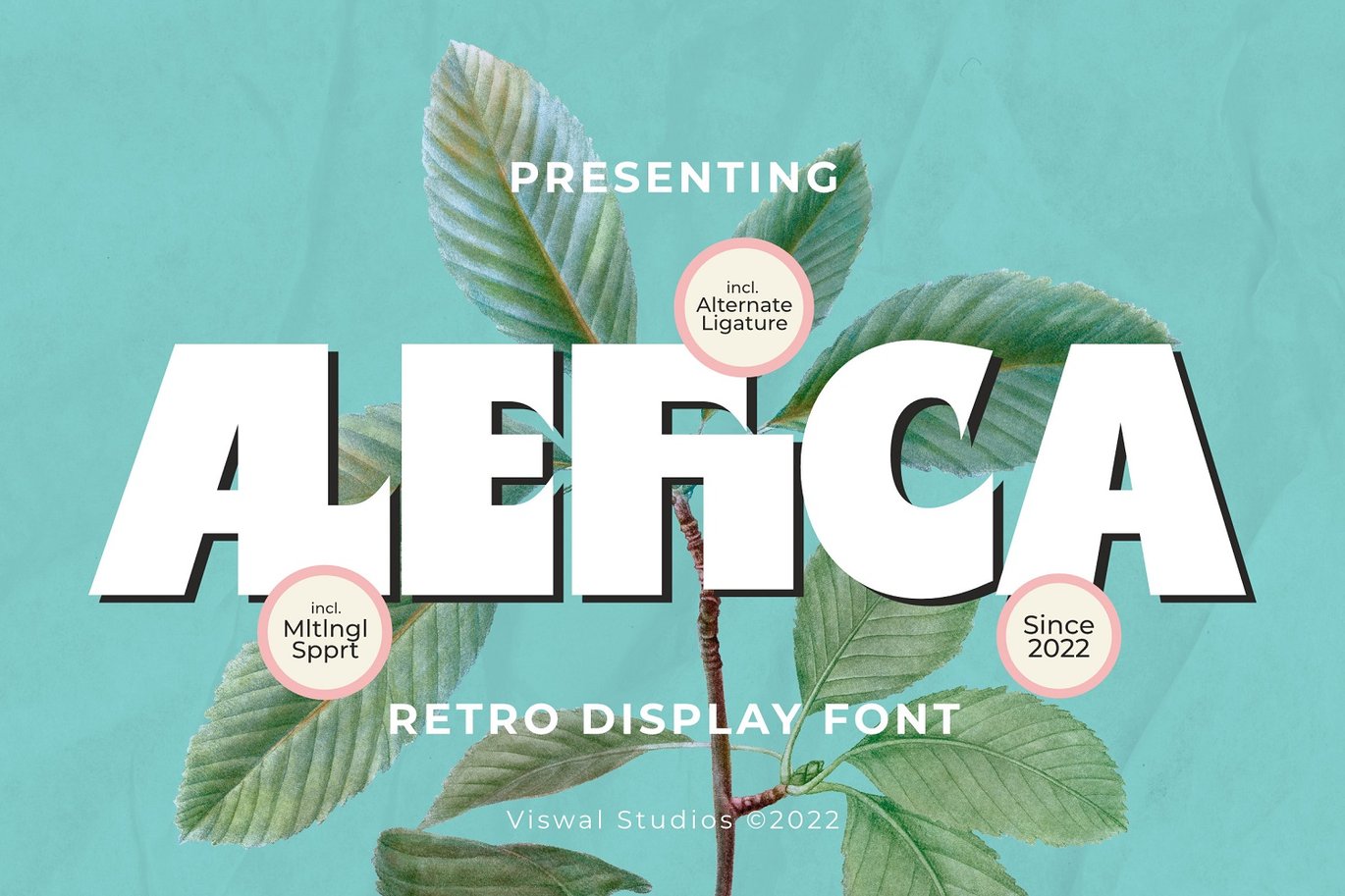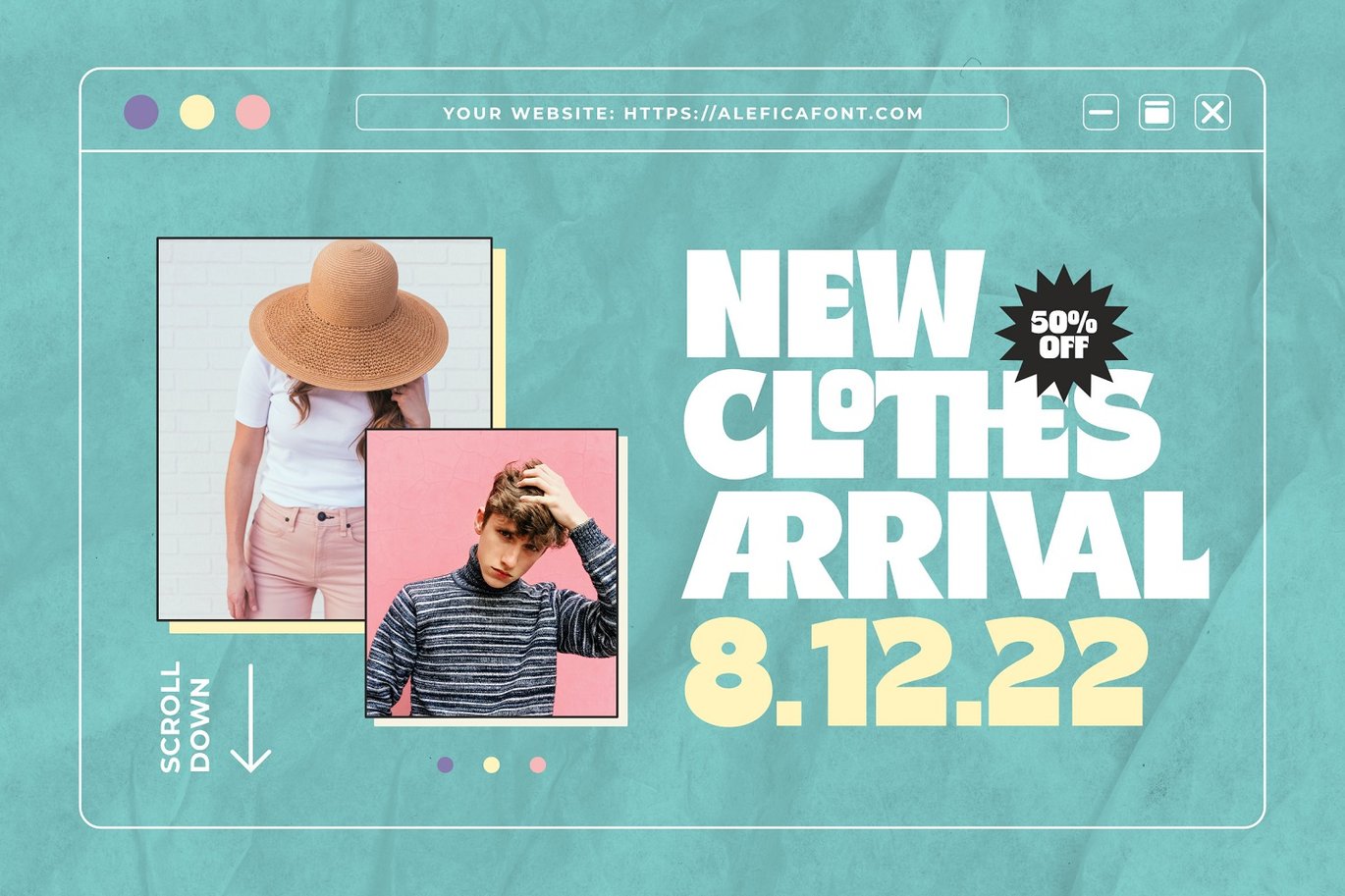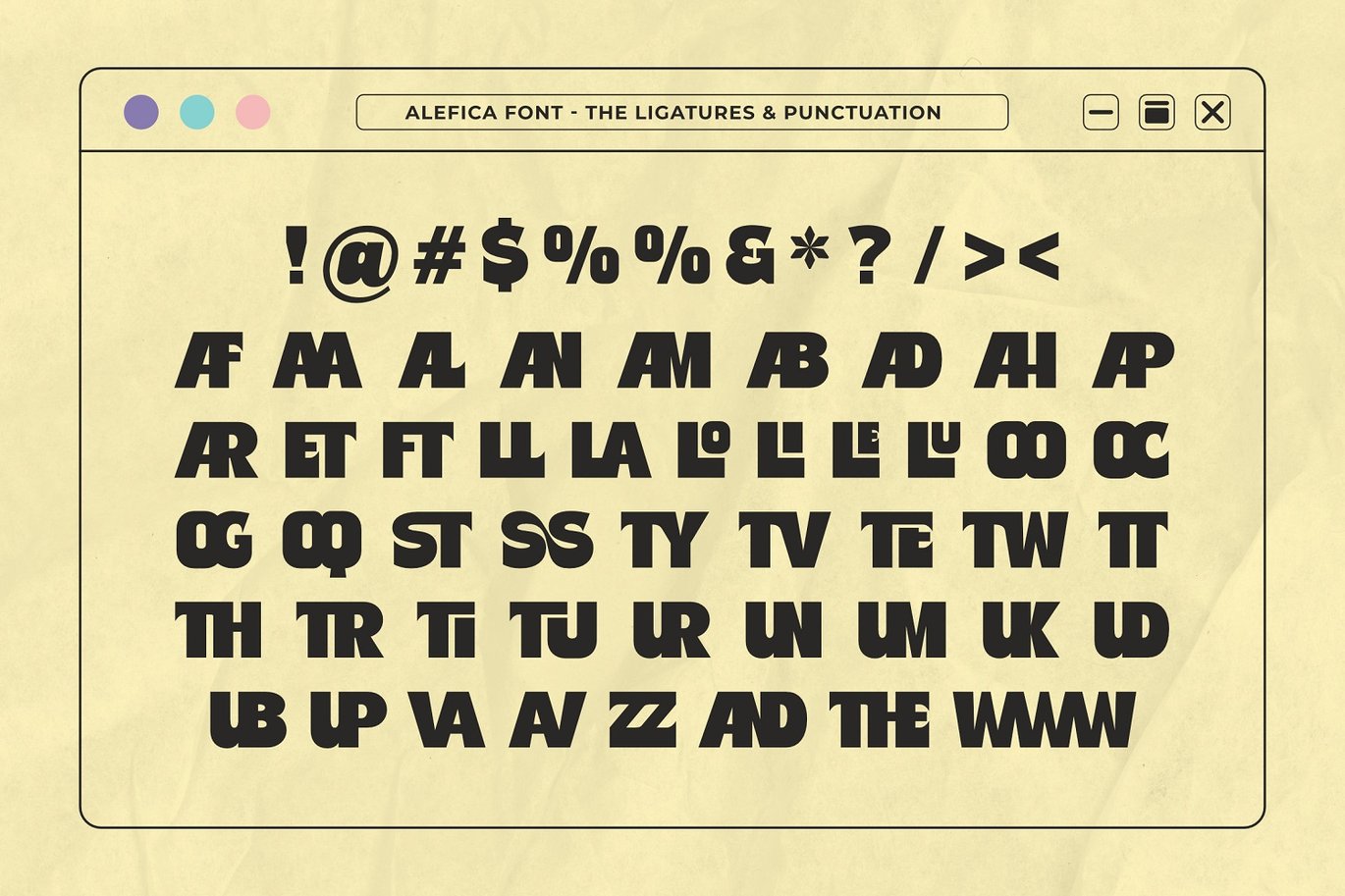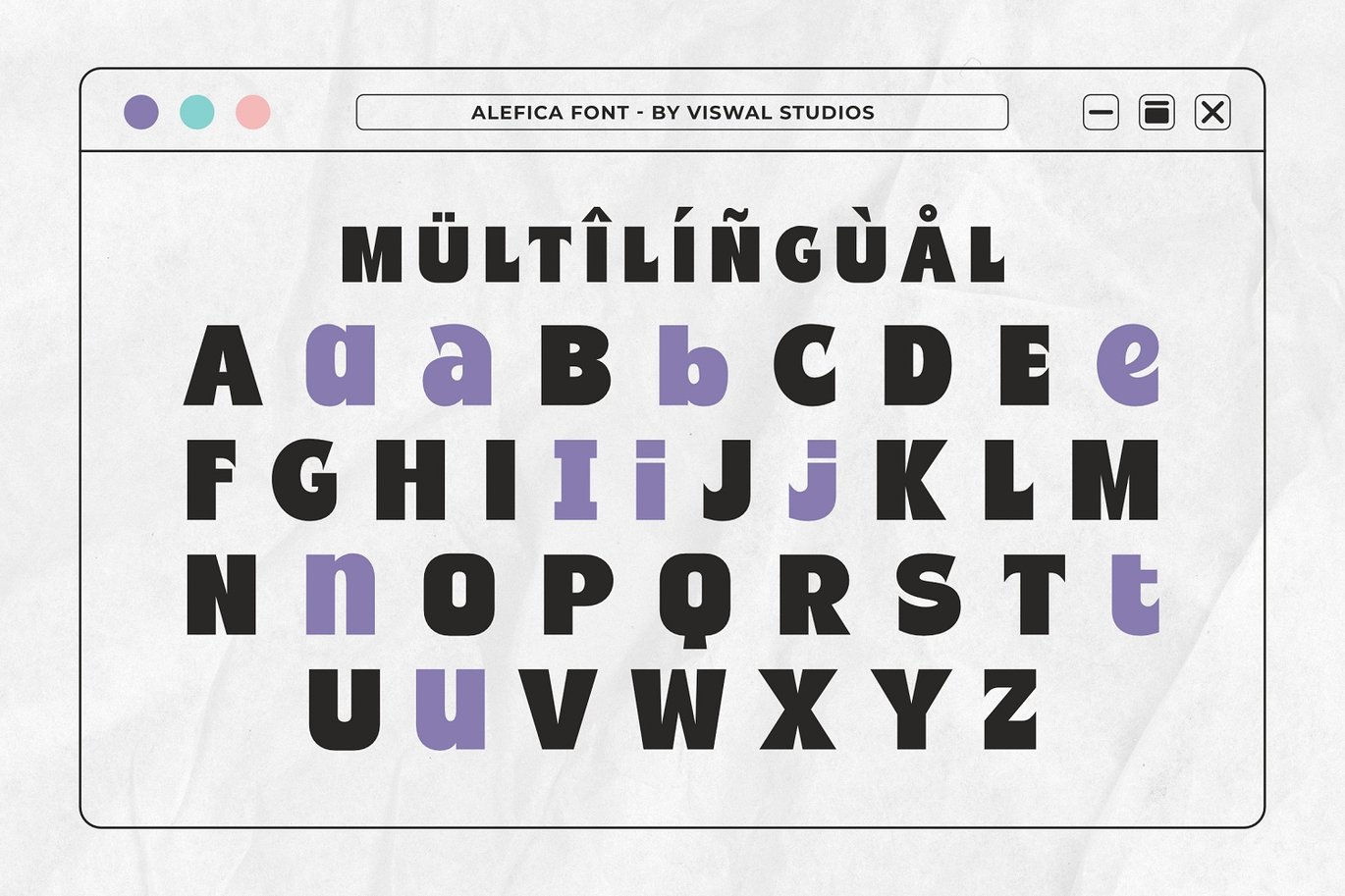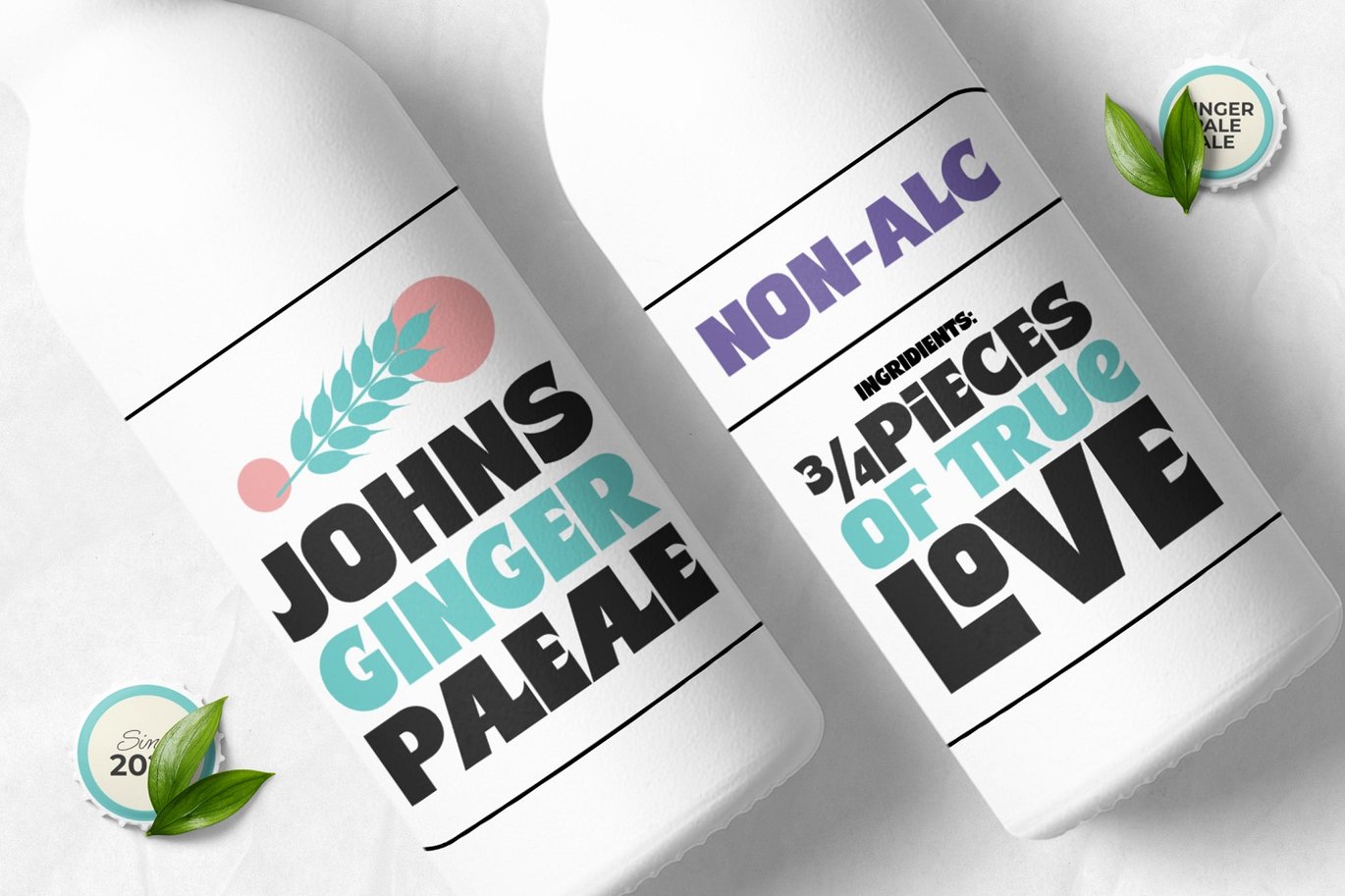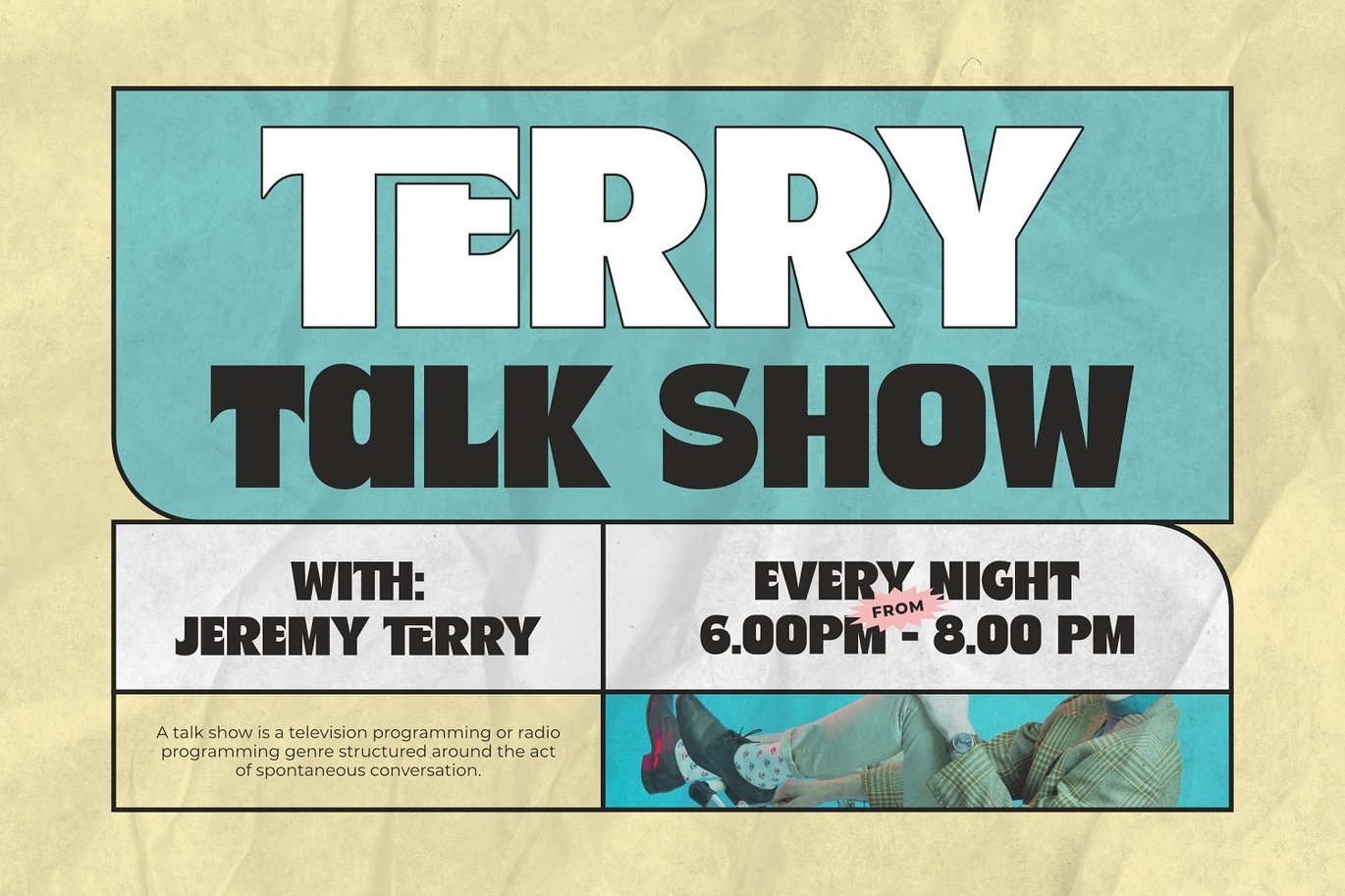
Alefica – Retro Font
Presenting Alefica – Retro Font is suitable for Posters, labels, logos, magazines, books, packaging, fashion, stationery, and etc. Our fonts have Uppercase & Lowercase, Numeral & Punctuation, Multilingual support and Opentype Features. For Amazing designs you can mix with other fonts as a complement.